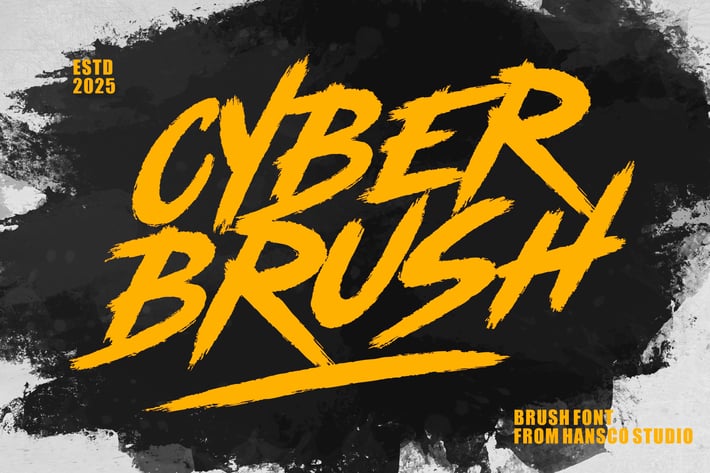
Cyber Brush Font
Cyber Brush is a display font with a bold and rough style in a dry brush texture. This texture is very detailed. This font is suitable for logos, product branding, printable templates, posters, flyers or for text overlay to any background image. Cyber Brush font comes in All caps, with punctuation, numerals and also has multilingual support. Highly recommended to use it in OpenType capable software – there are plenty out there nowadays as technology catches up with design such as Adobe Illustrator, Adobe InDesign, Adobe Photoshop Corel Draw X version, Affinity and more.
Uppercase only (ALL CAPS)
Number & Punctuation
Multilingual Supports